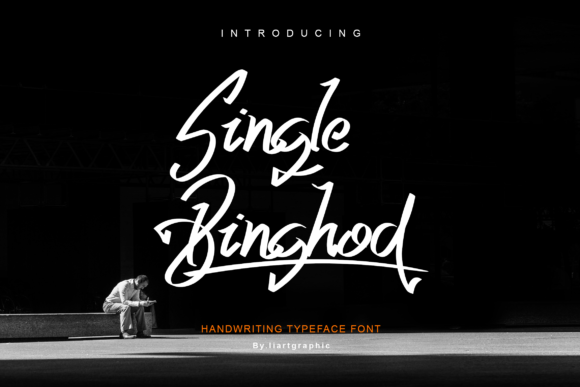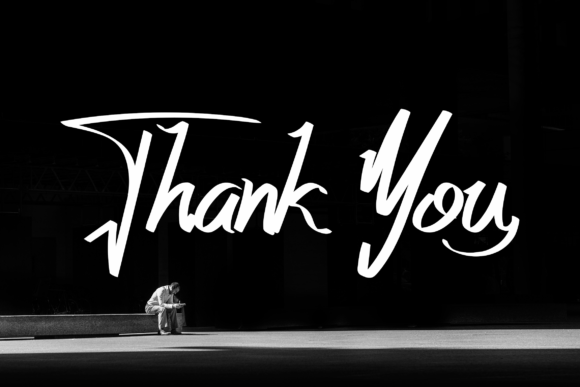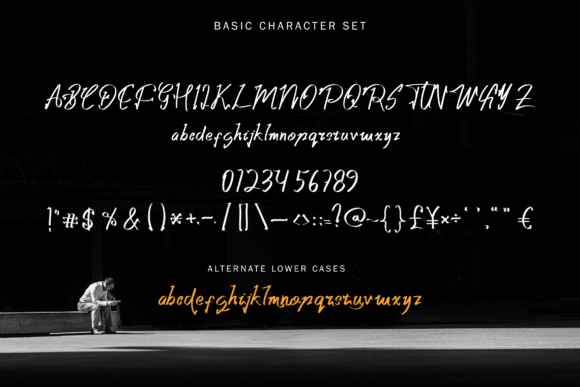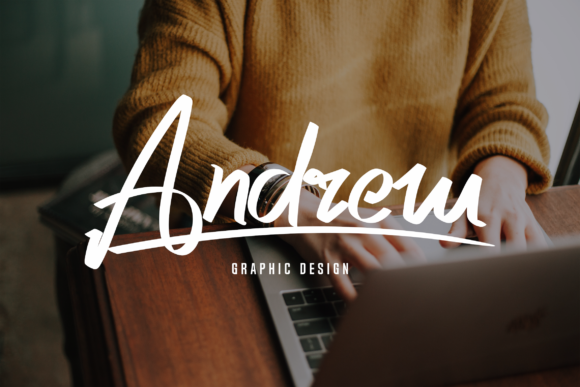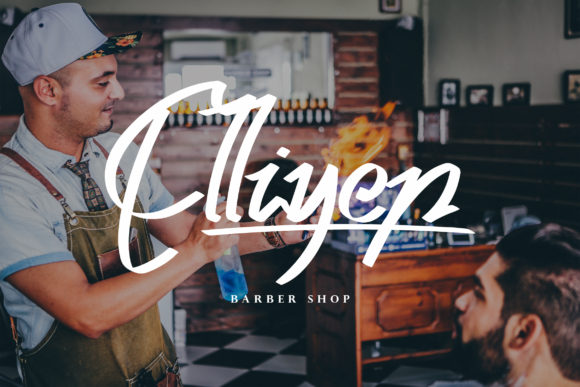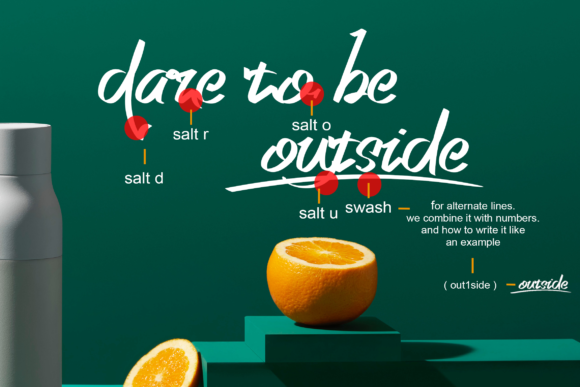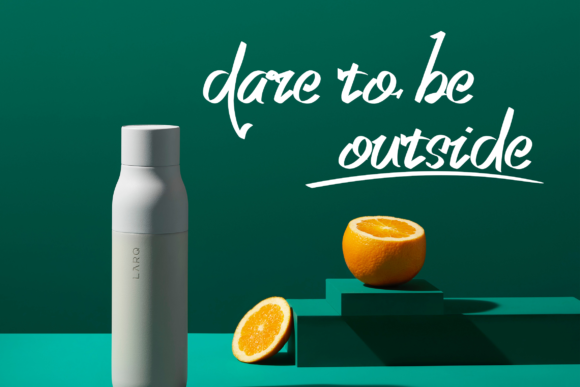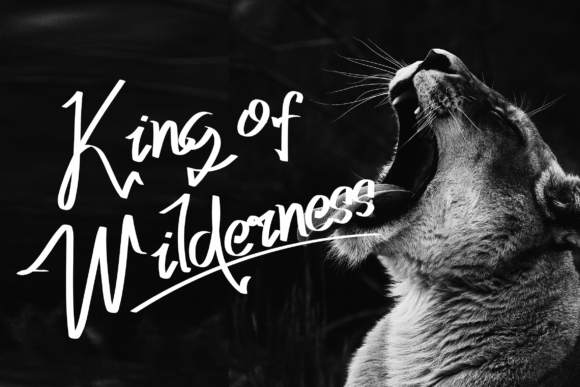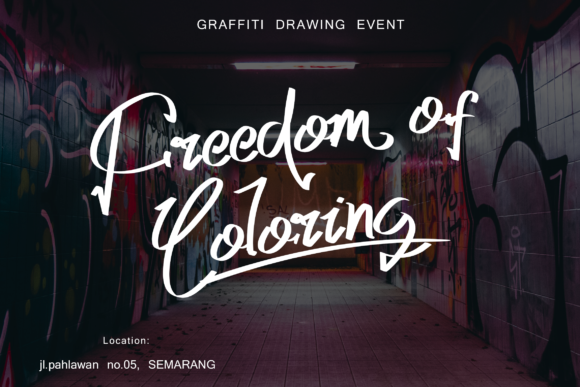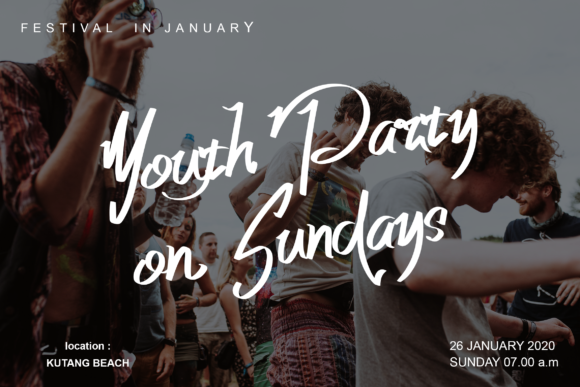
Single Binghod Font
About Single Binghod Font
Single Binghod is a casual and modern handwritten font. It will elevate a wide range of design projects to the highest level, be it branding, headings, wedding designs, invitations, signatures, logos, labels, and much more!